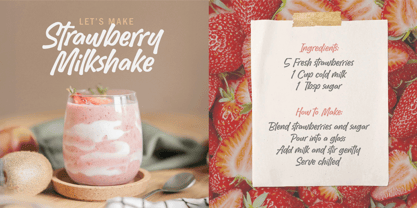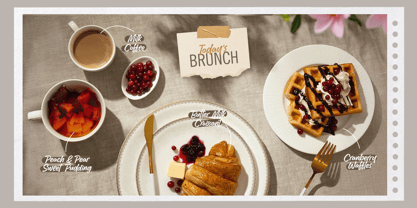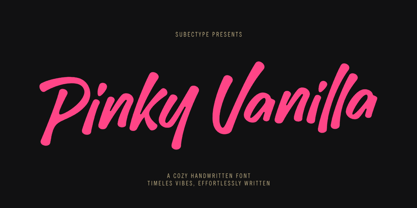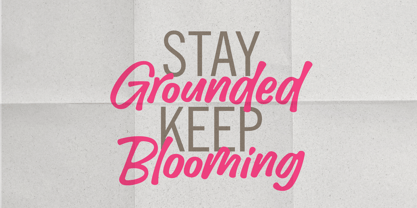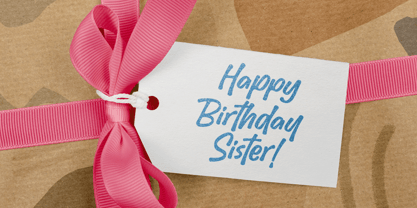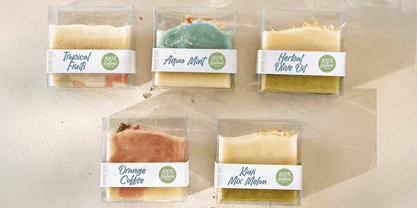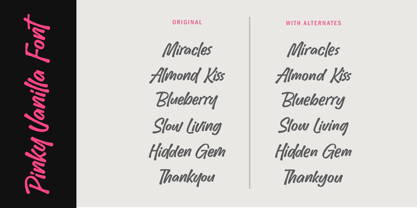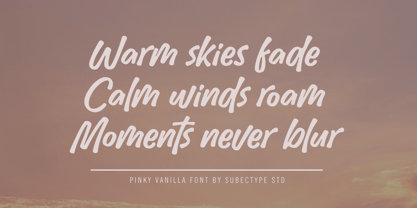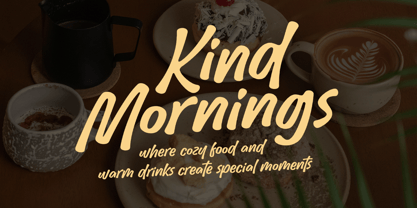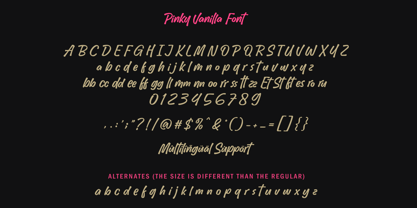
Pinky Vanilla
by Subectype
The Pinky Vanilla Font Family was designed by Rangga Subekti and published by Subectype. Pinky Vanilla contains 1 styles.
Introducing a handwritten font that captures the effortless beauty of natural handwriting. With its smooth strokes and relaxed rhythm, this typeface brings a personal, friendly touch to any design from branding and packaging to wedding invites and social media quotes.
Casual yet refined, this font balances modern simplicity with classic warmth. Whether you're crafting a heartfelt message or creating stylish visuals, its timeless flow will always feel fresh, familiar, and beautifully human.
Designers: Rangga Subekti
Publisher: Subectype
Foundry: Subectype